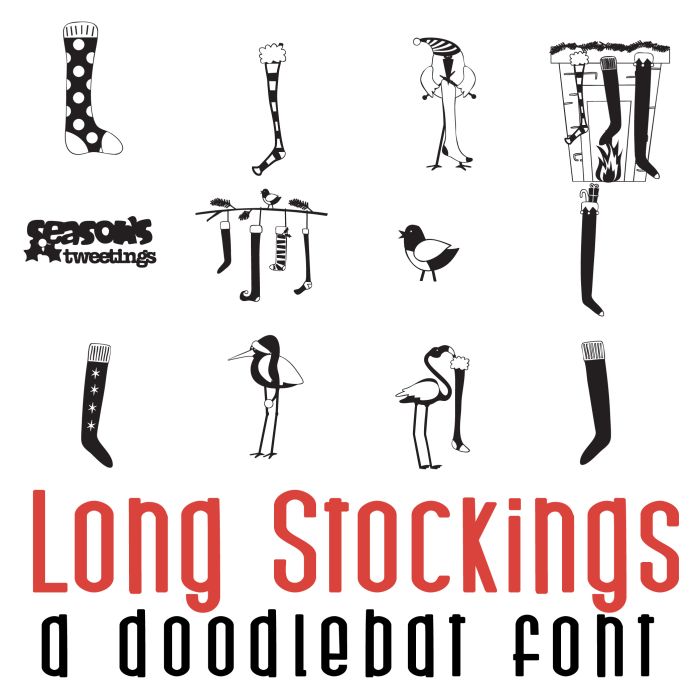
This fun doodle style doodlebat font features 26 long Christmas stockings and friends. Perfect for cards, crafts, gifts, decor, scrap book pages, planner stickers and more!